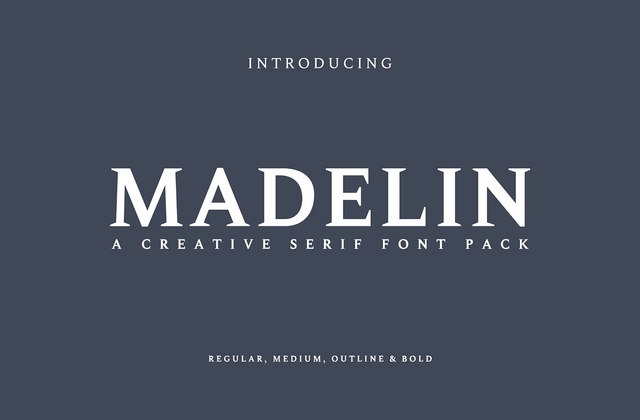
Madelin Serif Font Family
Madelin Serif Font Family is perfect for sophisticated publishing houses, luxury brand communications, elegant magazine layouts, premium wedding stationery, upscale restaurant menus, and refined corporate identities. This graceful typeface excels in high-end fashion publications, luxury hotel branding, fine art gallery materials, and any application where classical elegance and feminine sophistication create timeless impressions of quality and refinement.
What makes Madelin Serif Font Family so exciting is its exquisite ability to embody graceful femininity and classical sophistication through beautifully proportioned letterforms that honor traditional typography while offering contemporary versatility. The font features elegant serifs, refined curves, and sophisticated character shapes that reflect timeless beauty and intellectual grace. Its distinguished presence makes it perfect for brands that value both heritage and contemporary elegance.
Madelin Serif Font Family comes in a comprehensive family including Thin, Light, Regular, Medium, Bold, and Black weights. Each style features complete uppercase and lowercase character sets, elegant symbols, refined numerals, and sophisticated punctuation marks. The font family also includes italic variants, small caps, and stylistic alternates that provide designers with extensive flexibility for creating truly distinguished typographic compositions.
This elegant typeface represents the pinnacle of sophisticated serif design where classical beauty meets contemporary functionality. Madelin Serif Font Family Free Download empowers luxury brands and refined organizations to enhance their communications with typography that reflects their commitment to timeless elegance and quality craftsmanship. Whether you're developing premium editorial designs, creating luxury brand materials, or designing sophisticated corporate communications, this font delivers uncompromising grace with classical distinction.
The font's sophisticated character makes it particularly effective for luxury publishers, high-end fashion brands, elegant hospitality venues, and premium service providers. Its graceful readability ensures that Madelin Serif Font Family maintains clarity while projecting maximum sophistication and preserving its distinctive elegant personality. The font's ability to inspire confidence and communicate refined taste makes it an invaluable jewel for any project requiring typography that embodies the highest standards of classical elegance and represents the enduring appeal of sophisticated feminine grace.